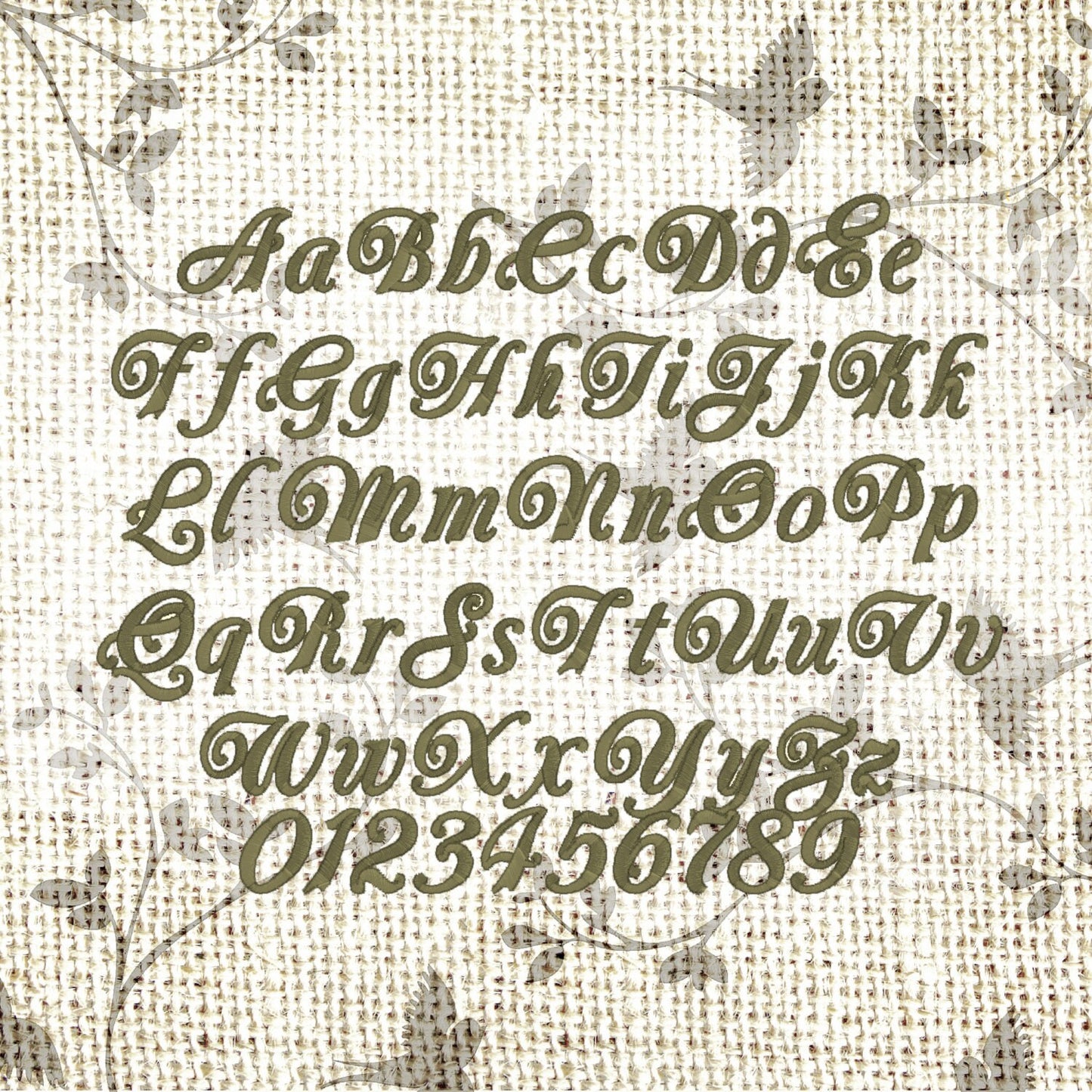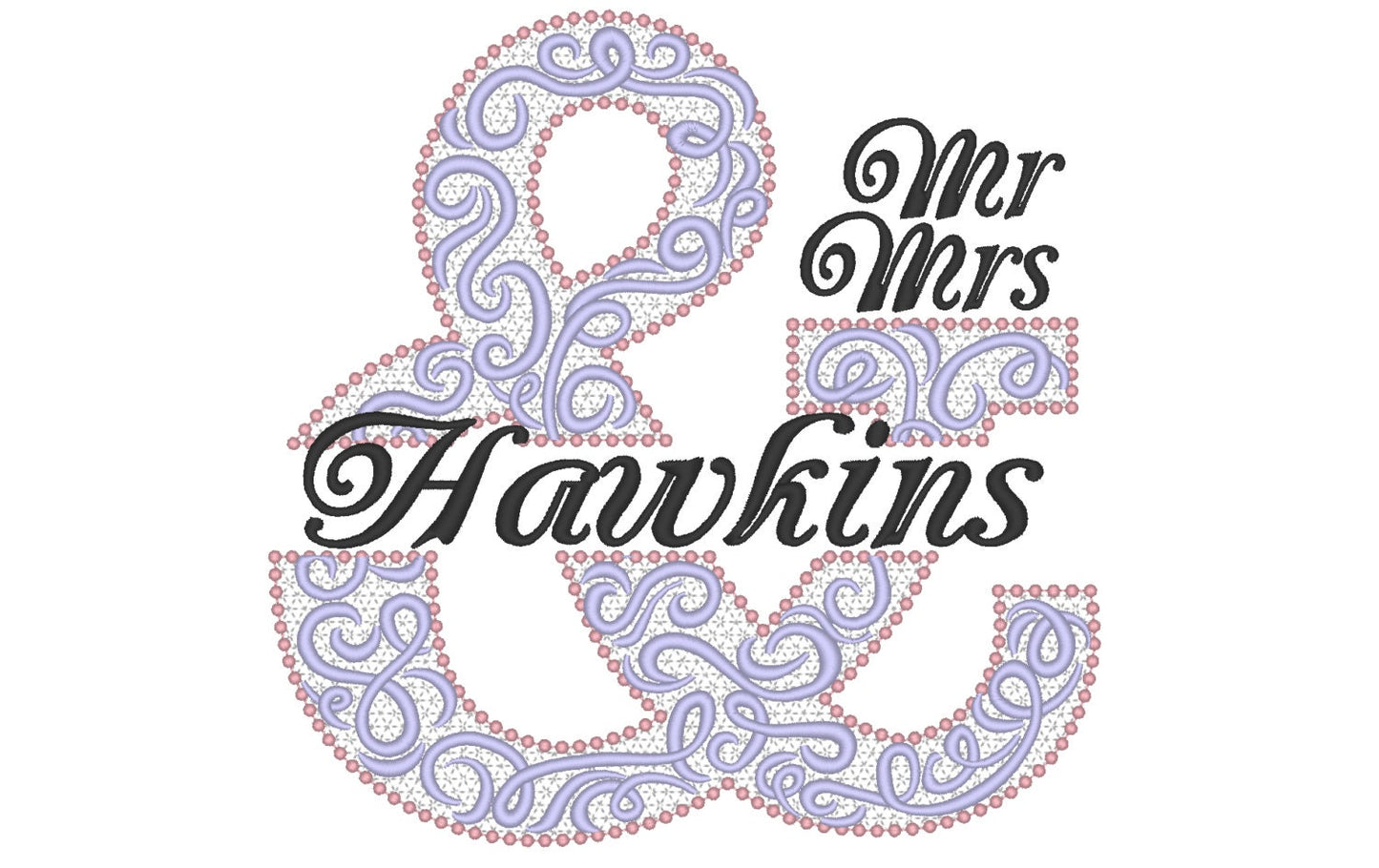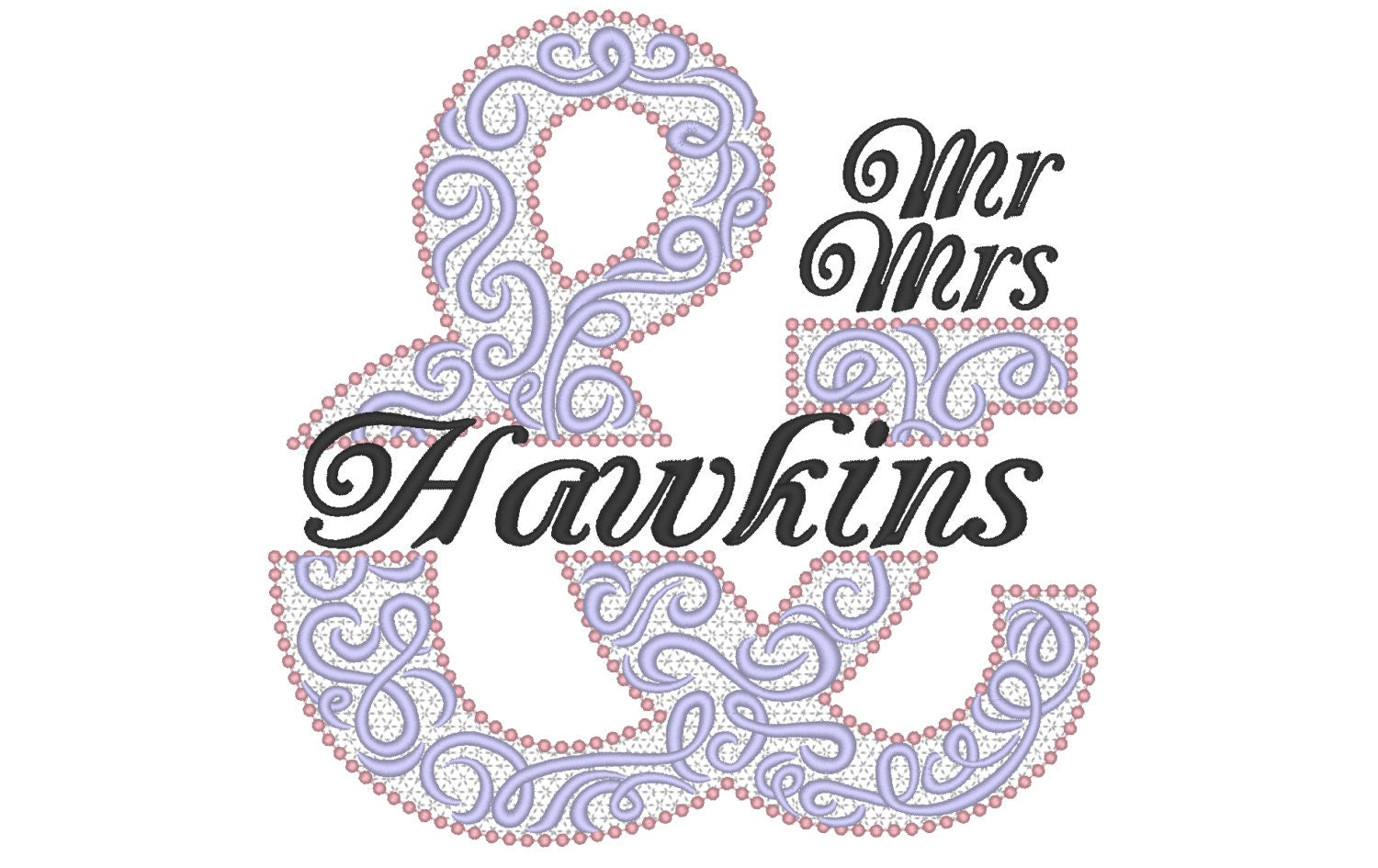
Lace Split Ampersand and Font
The lace ampersand is split, leaving room for names on each side. The mini font has uppercase and lowercase letters with umlauts, numbers 0 to 9 and punctuation in seven sizes: 0.7, 0.8, 1, 1.2, 1.6, 2 and 2.4 inches.
- Lace split ampersand
- Mini font, uppercase and lowercase letters, numbers 0 to 9
- Font in 7 sizes, 0.7 to 2.4 in